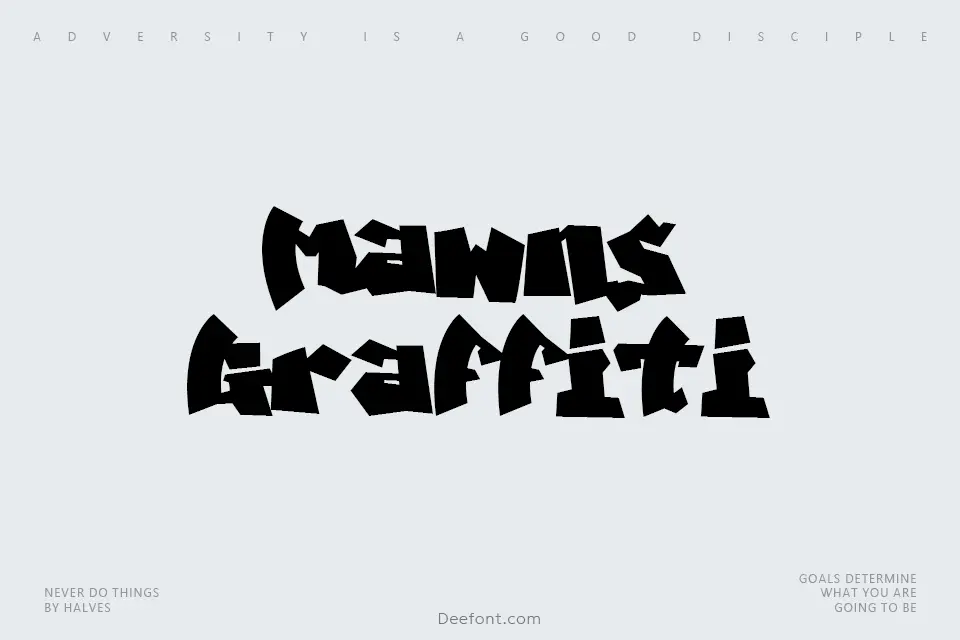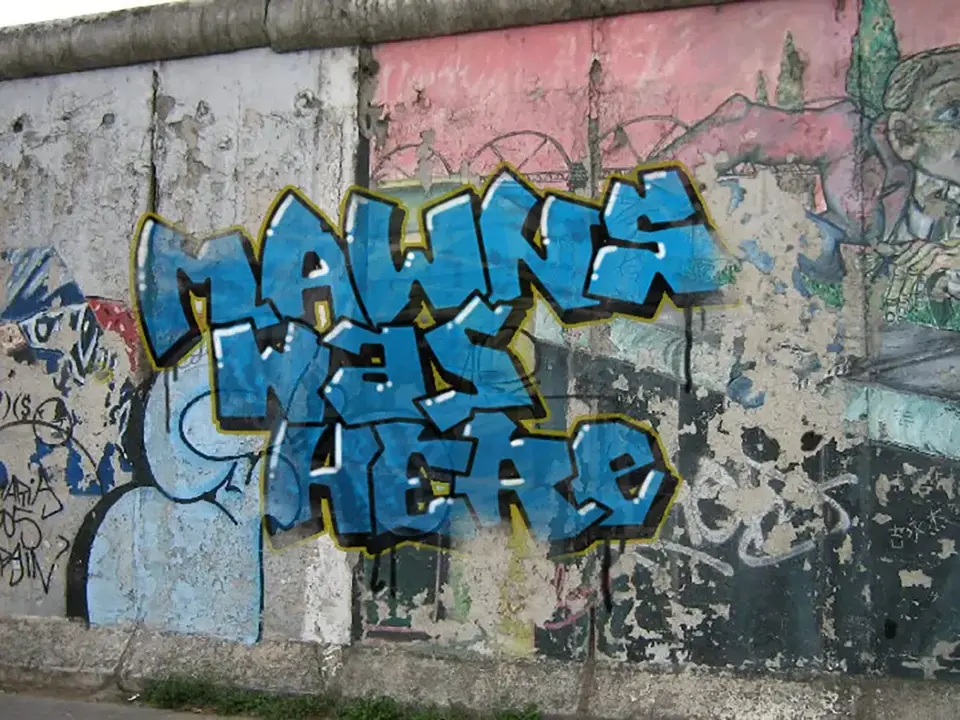
Mawns Graffiti Font
Mawns Graffiti is a bold, angular, and highly stylized graffiti-inspired script font featuring sharp edges, irregular shapes, and a hand-drawn urban aesthetic. Characterized by blocky and dynamic characters with uneven baselines and exaggerated forms, this typeface is perfectly suited for street art posters, hip-hop album covers, urban event flyers, youth-oriented branding, skateboard graphics, headlines, logos, and attention-grabbing poster designs. With its distinctive graffiti flair and creative energy, the font brings an edgy, contemporary urban feel to any project.